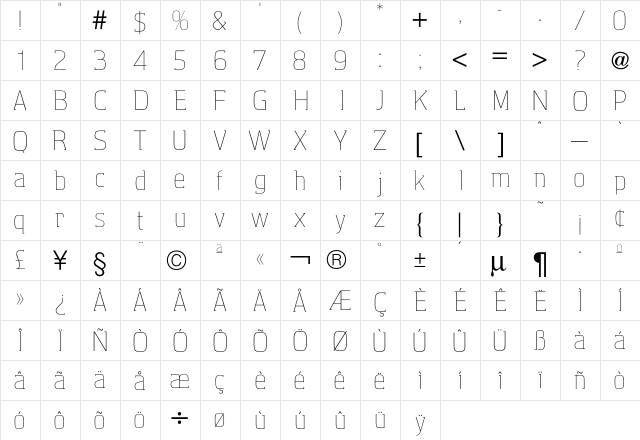
Aquarius Two
Design Context for Aquarius Typeface
Aquarius offers clean, dependable letterforms without strong stylistic allegiance, making it a practical choice for designers who need flexibility.
Pro Tip: Pair Aquarius with a font of contrasting weight or personality to build a more expressive typographic hierarchy.